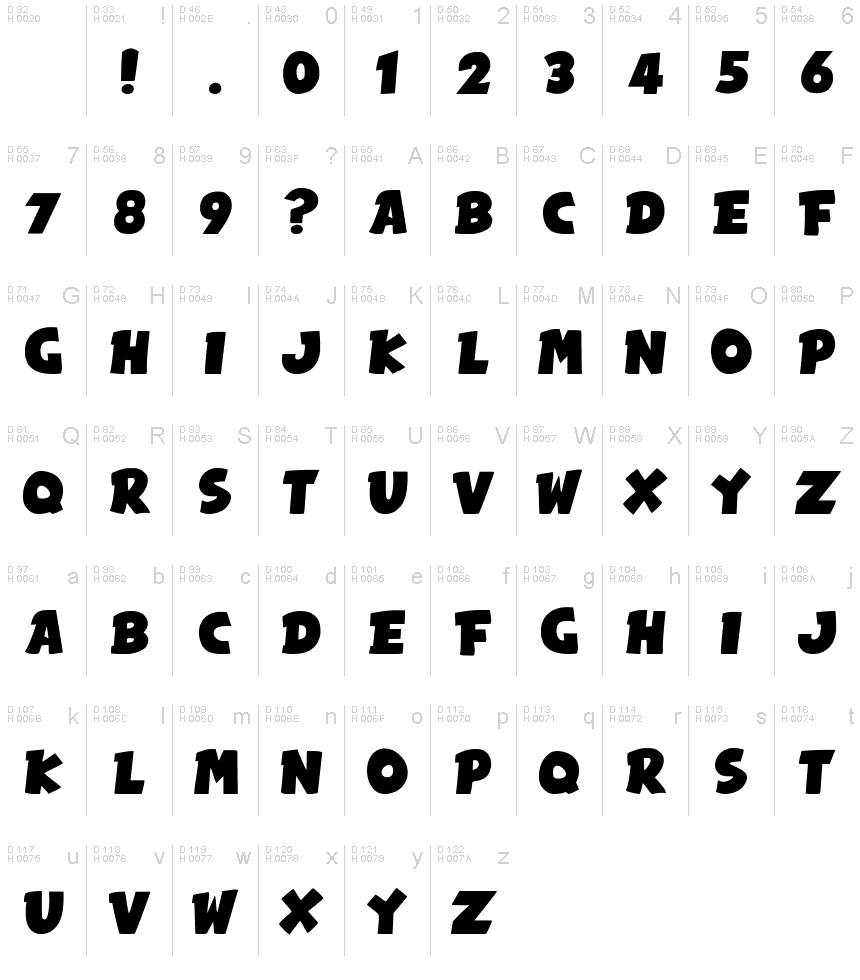
Super Comic Regular
Introducing Super Comic! This bold display font, designed by Novita Maria, is perfect for making an impact in your comic-style projects. With its playful letterforms, it's sure to bring a spark of fun to any design or logo. Give your projects extra personality with Super Comic!